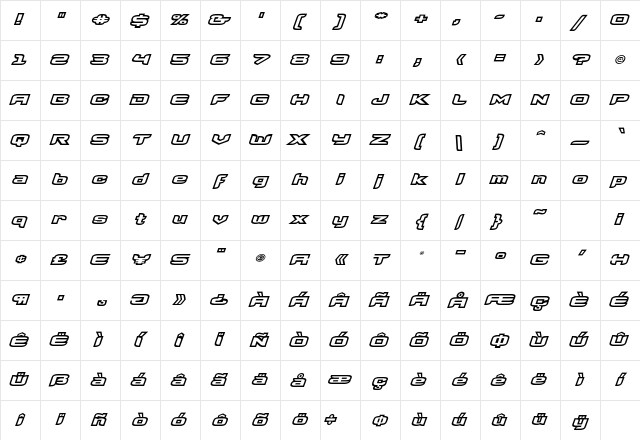
Megahertz OutItalic
Style: OutItalic
Design Context for Megahertz
Megahertz is a composed and adaptable typeface that performs quietly and consistently across a wide range of design contexts. The slanted form adds forward momentum and visual energy.
Pro Tip: Use Megahertz for emphasis, pull quotes, and subheadings where its slanted energy can add rhythm to the layout.